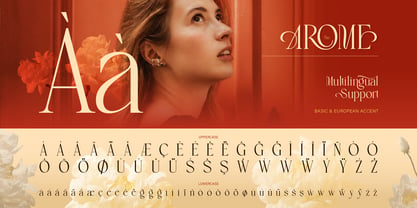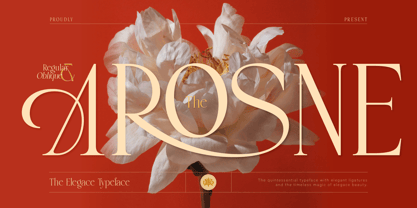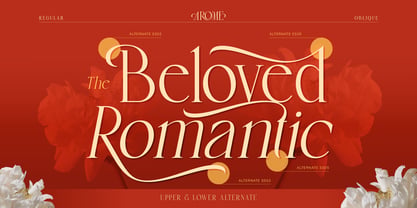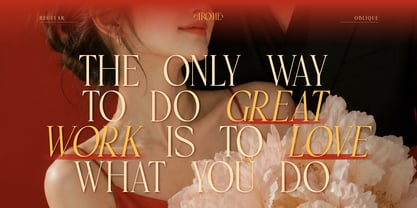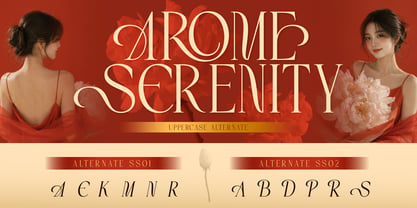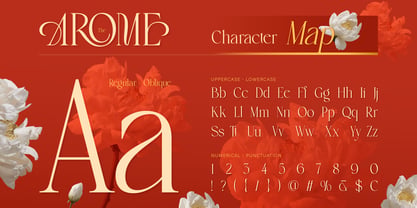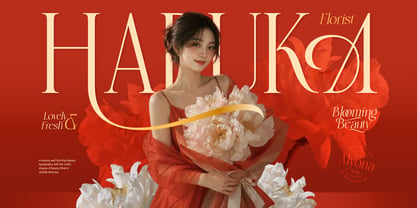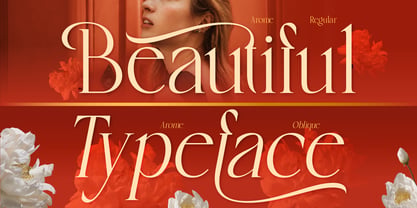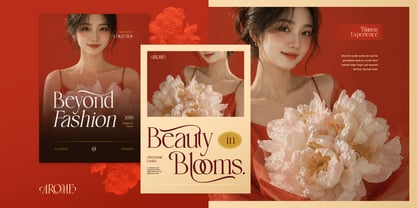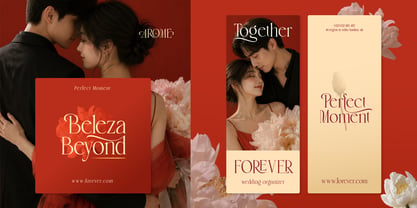
Arosne
by Burntilldead
The Arosne Font Family was designed by Eric Kurniawan and published by Burntilldead. Arosne contains 2 styles and family package options. More about this family
Arosne is a refined serif typeface designed to bring a sense of elegance, romance, and timeless beauty into your work. With its graceful curves, high contrast strokes, and delicate details, Arosne creates a luxurious look that feels both classic and modern.
This typeface comes in Regular and Oblique styles, giving you the flexibility to create designs that feel polished, expressive, and full of character. Whether you're going for something soft and feminine or bold and editorial, Arosne adapts beautifully.
What makes Arosne stand out is its stylish ligatures and carefully crafted alternates, allowing you to create unique, high-end typography with ease. Every letter is designed to flow naturally, making your text look effortlessly elegant.
Features: A - Z set (Uppercase & Lowercase), Number, Punctuation, Alternates, Ligatures, Multilingual
Designers: Eric Kurniawan
Foundry: Burntilldead